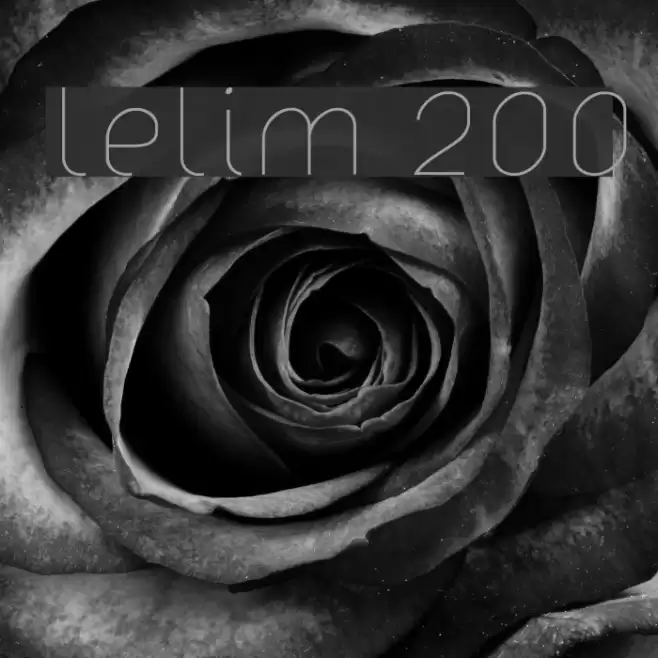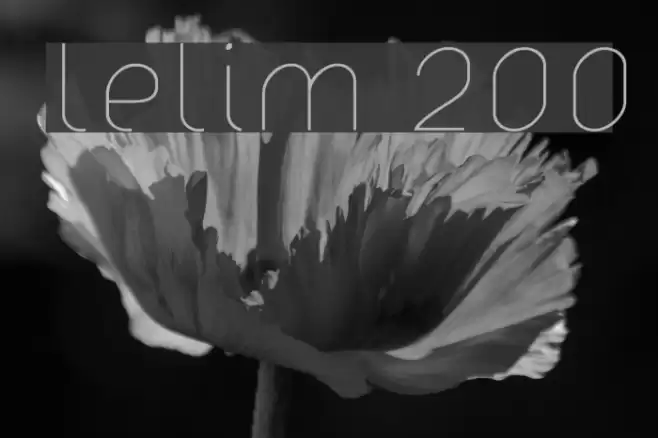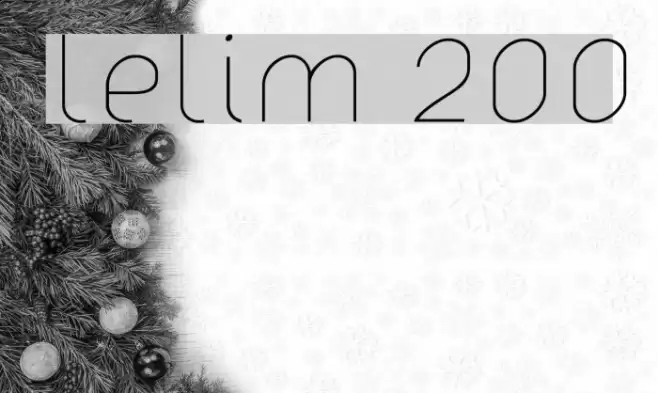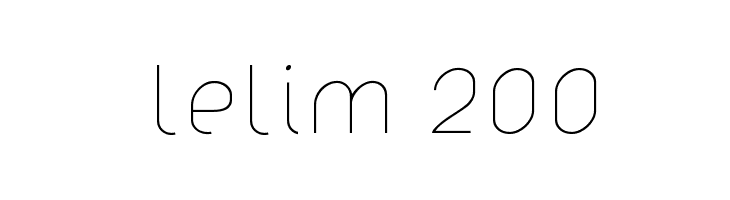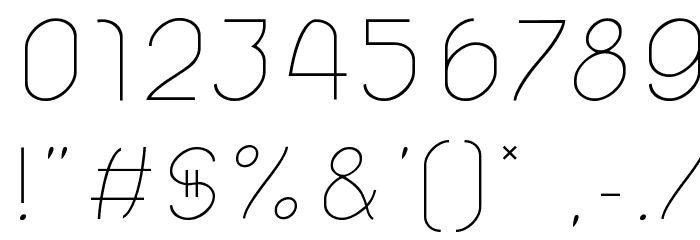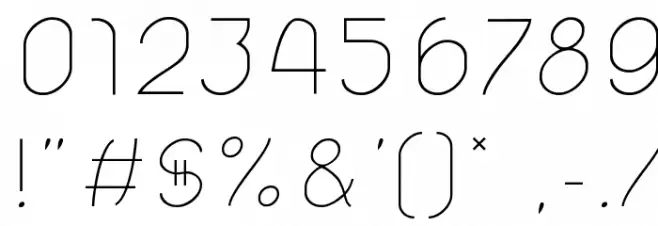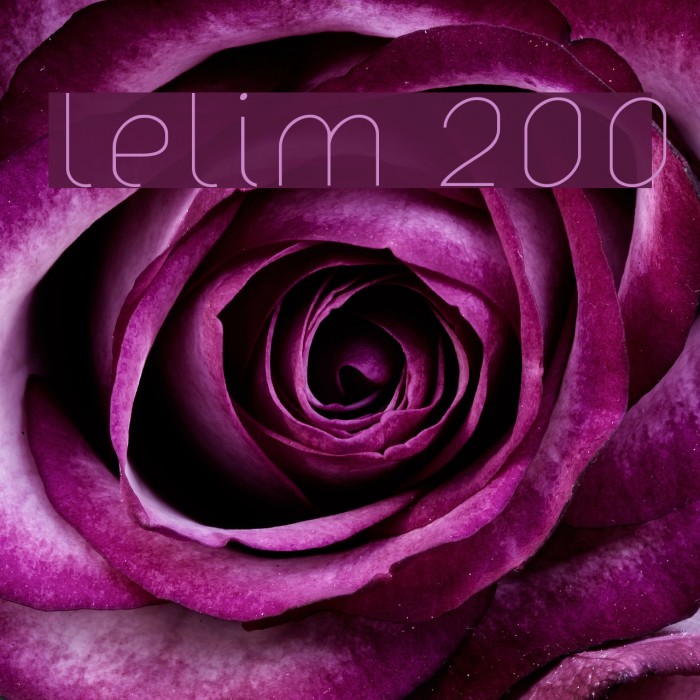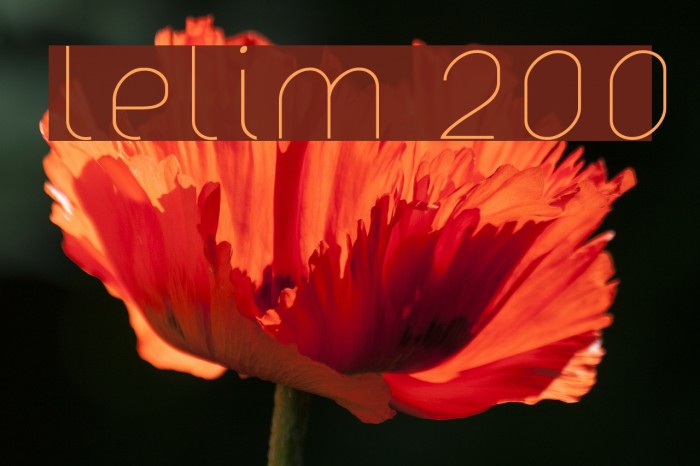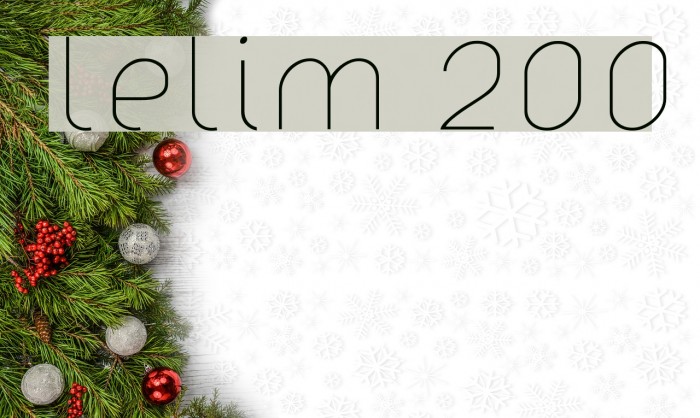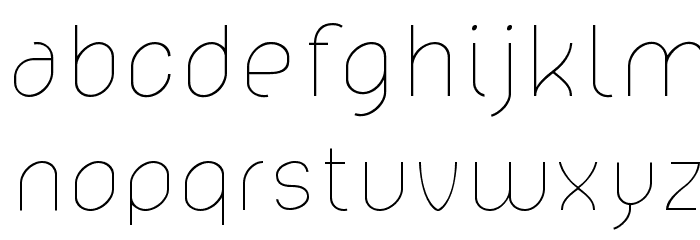
lelim 200 Font
lelim 200 Description
This font features a minimalist and modern design with clean, geometric lines. The characters are constructed with uniform stroke widths, giving it a sleek and contemporary appearance. The uppercase letters are tall and slightly narrow, while the lowercase letters maintain a consistent height, contributing to a harmonious look. The numerals are distinct and easy to read, with a similar geometric style. Special characters are well-defined, complementing the overall aesthetic. This font's simplicity and clarity make it versatile for various design applications.
A minimalist, geometric font with uniform stroke widths and a modern aesthetic from Uncategorized fonts.
- Proposed Projects: Ideal for modern branding, tech-related projects, minimalist posters, and digital interfaces.
- Weight: Light
- Use Case: Headlines, Logos, Digital interfaces